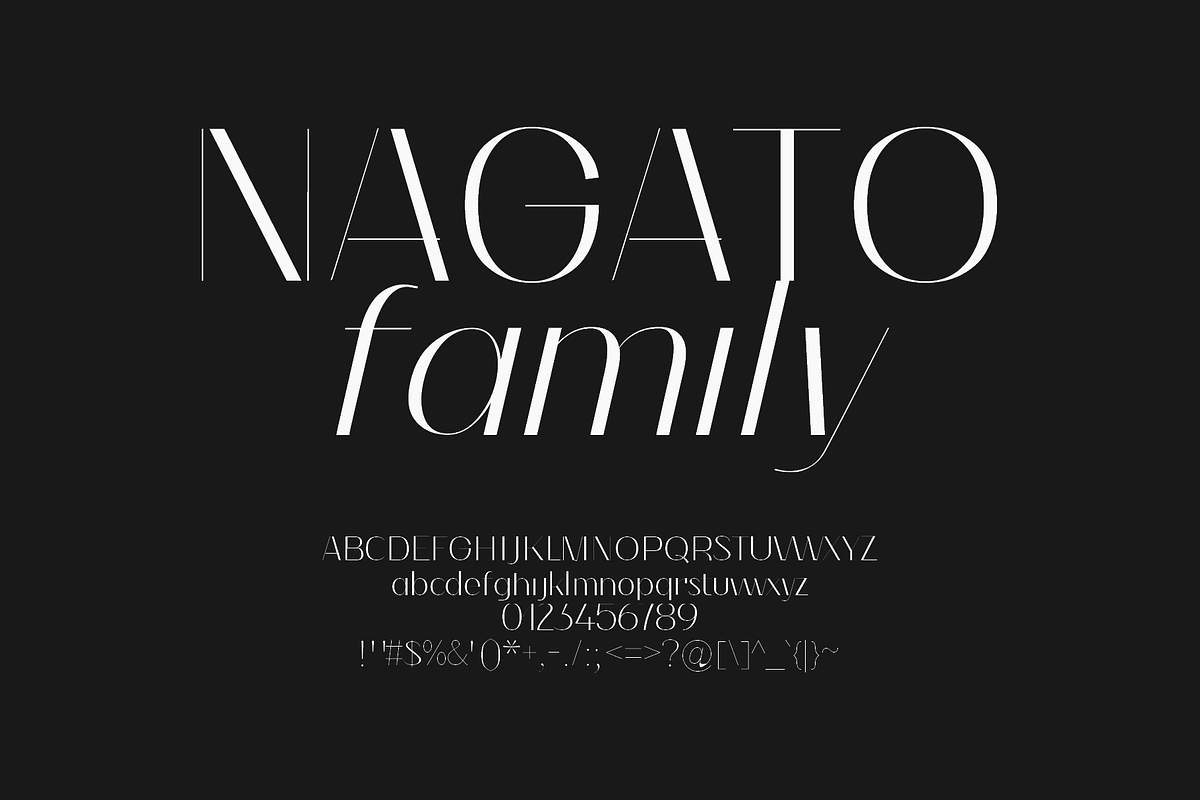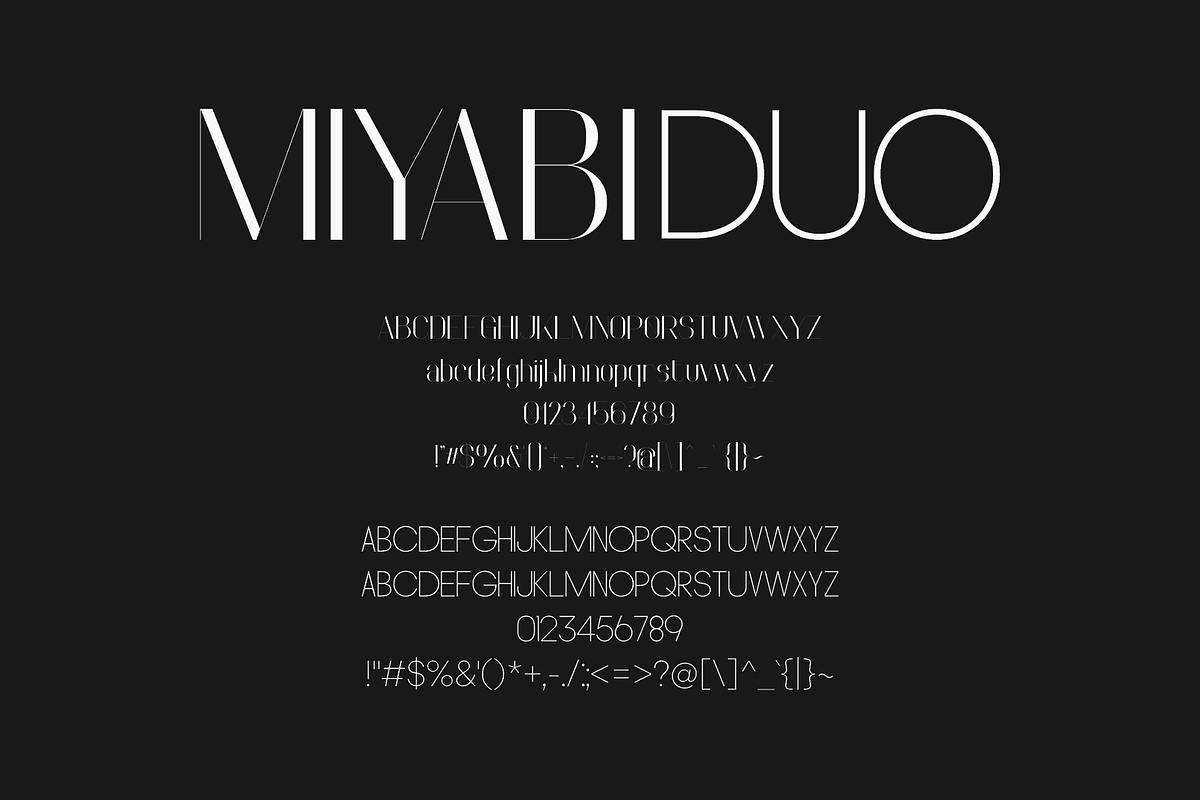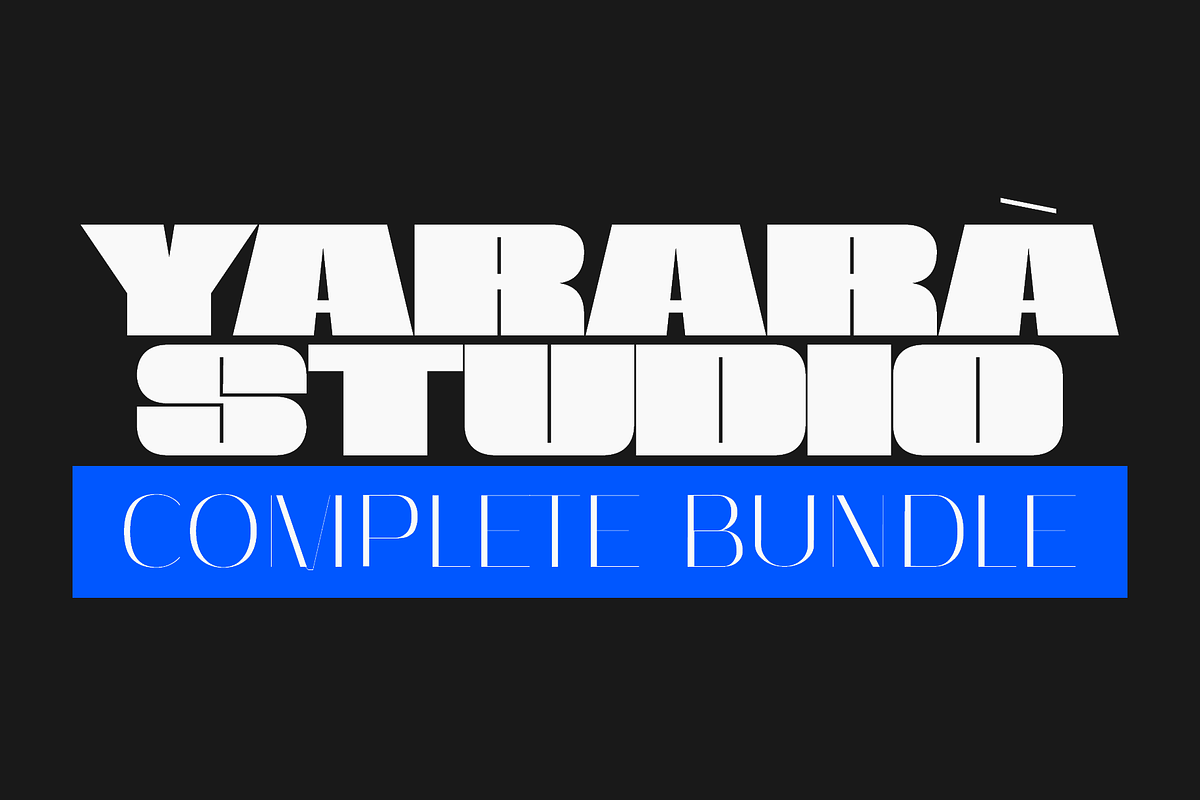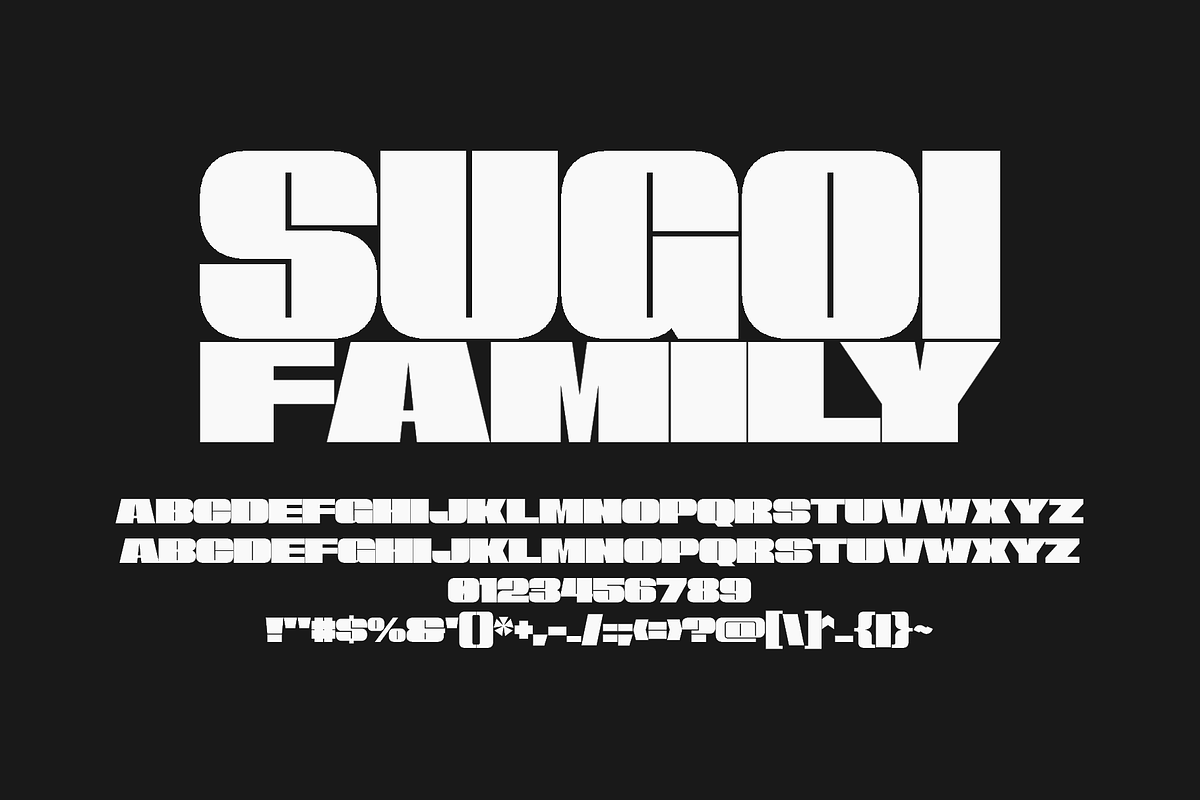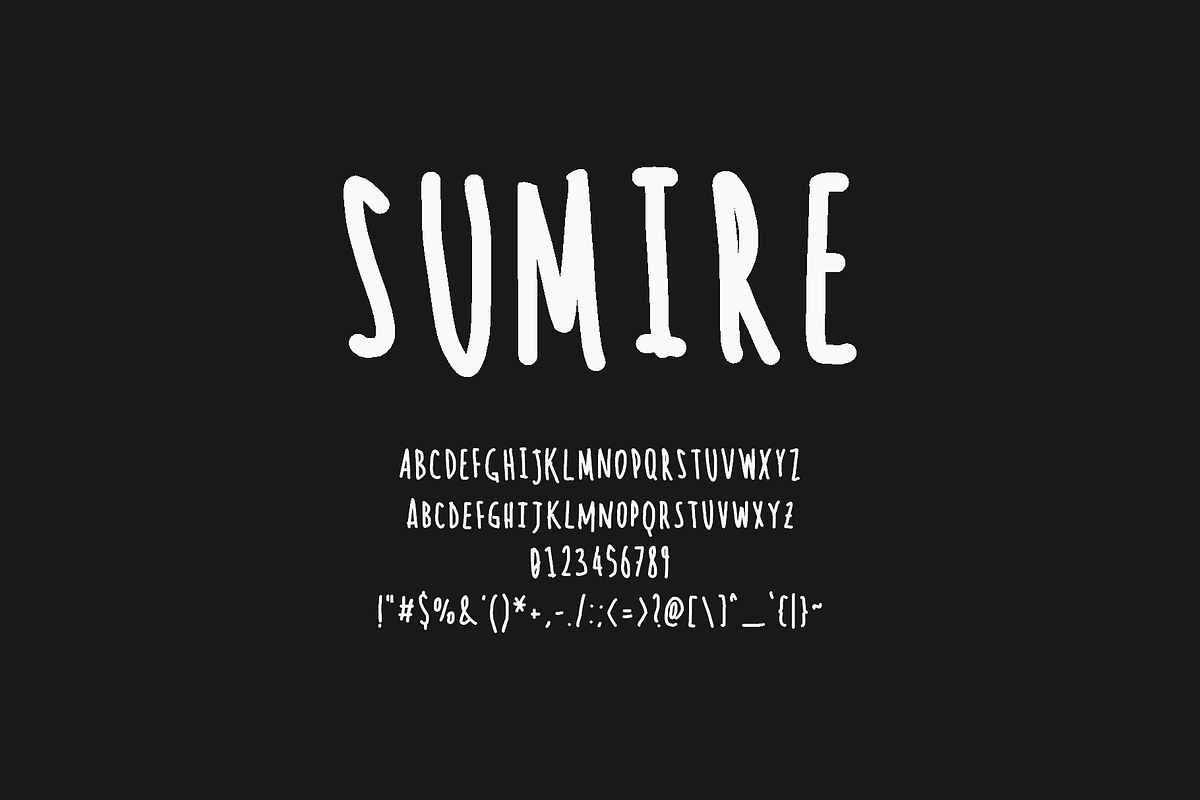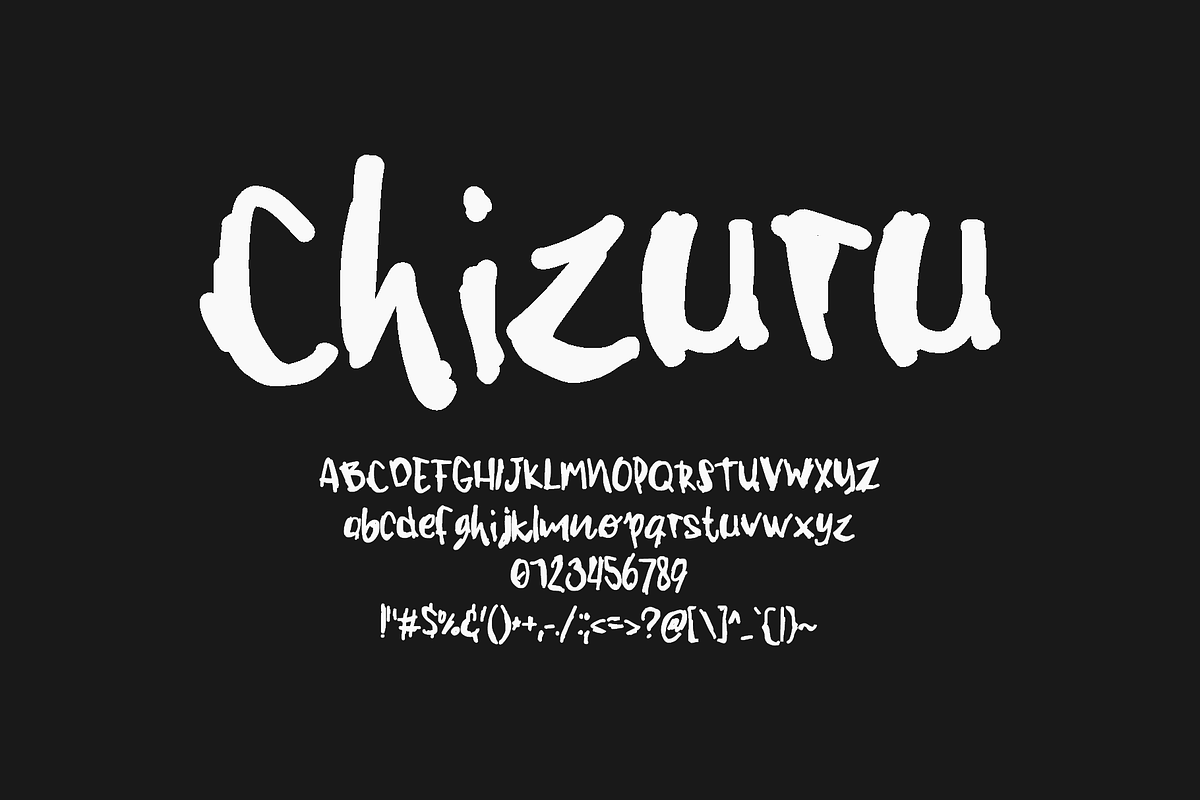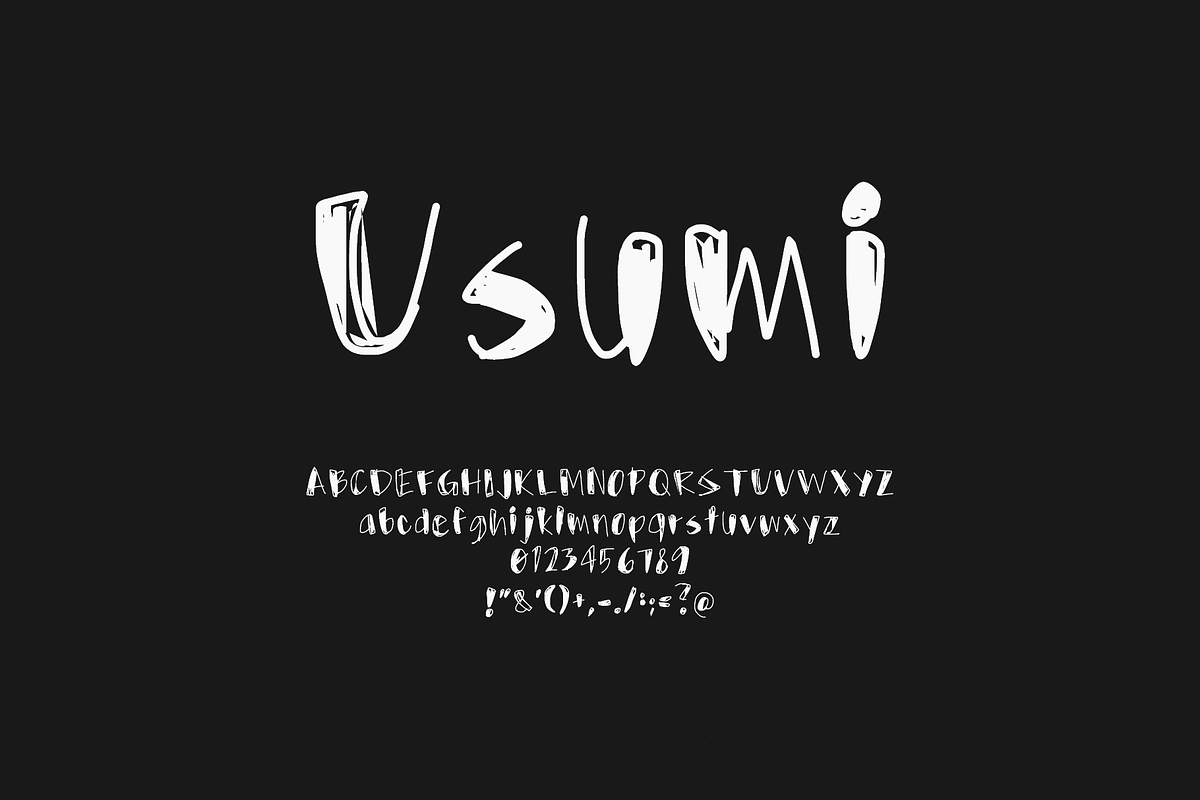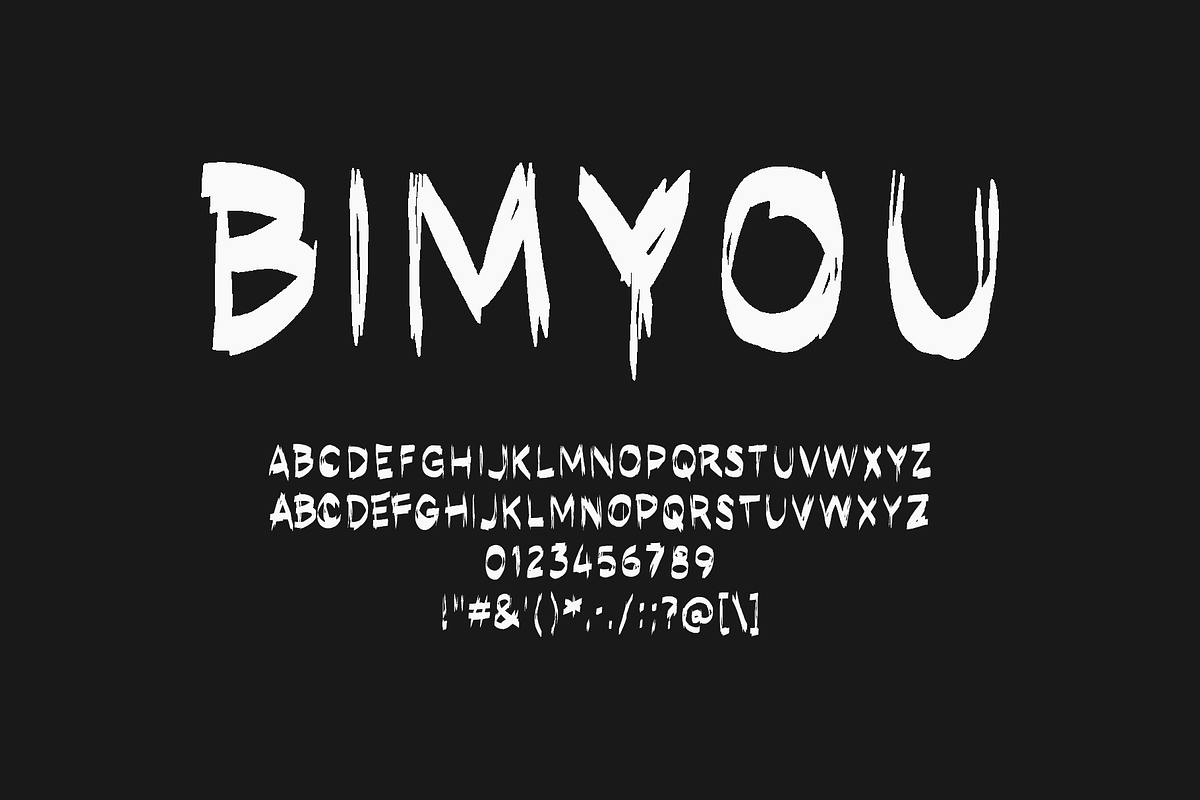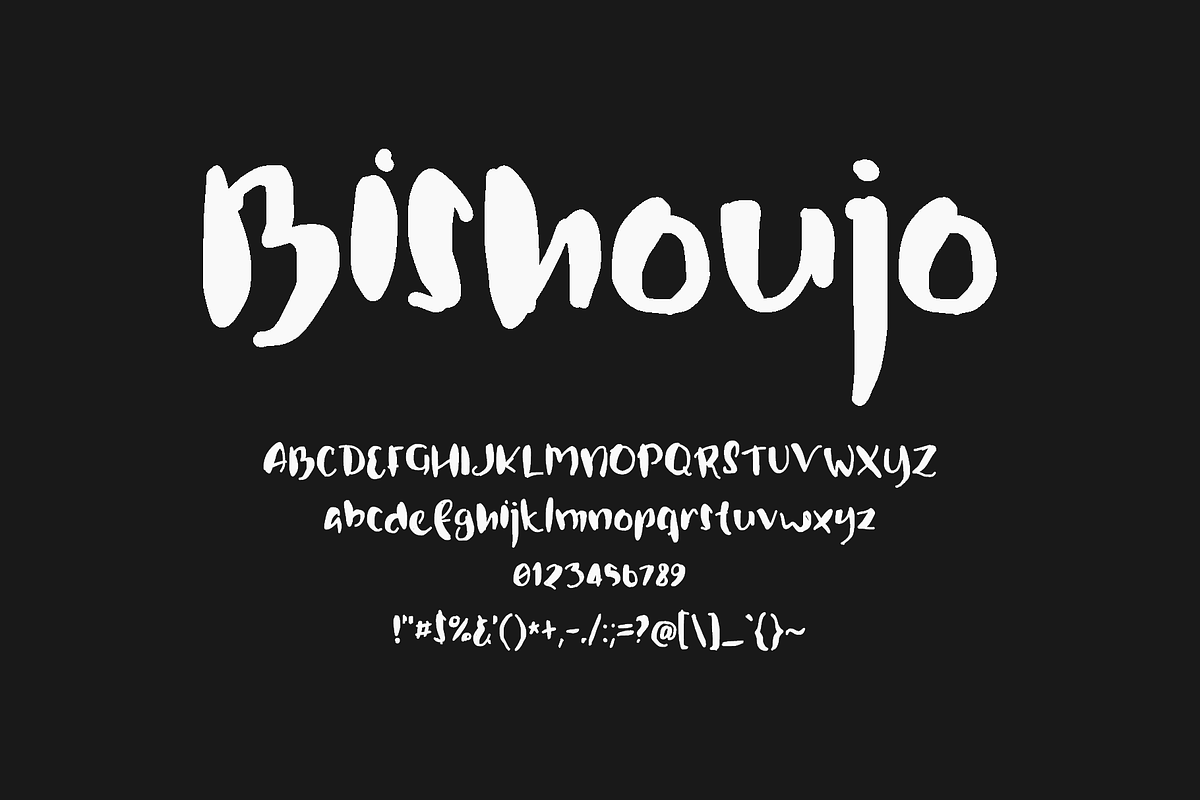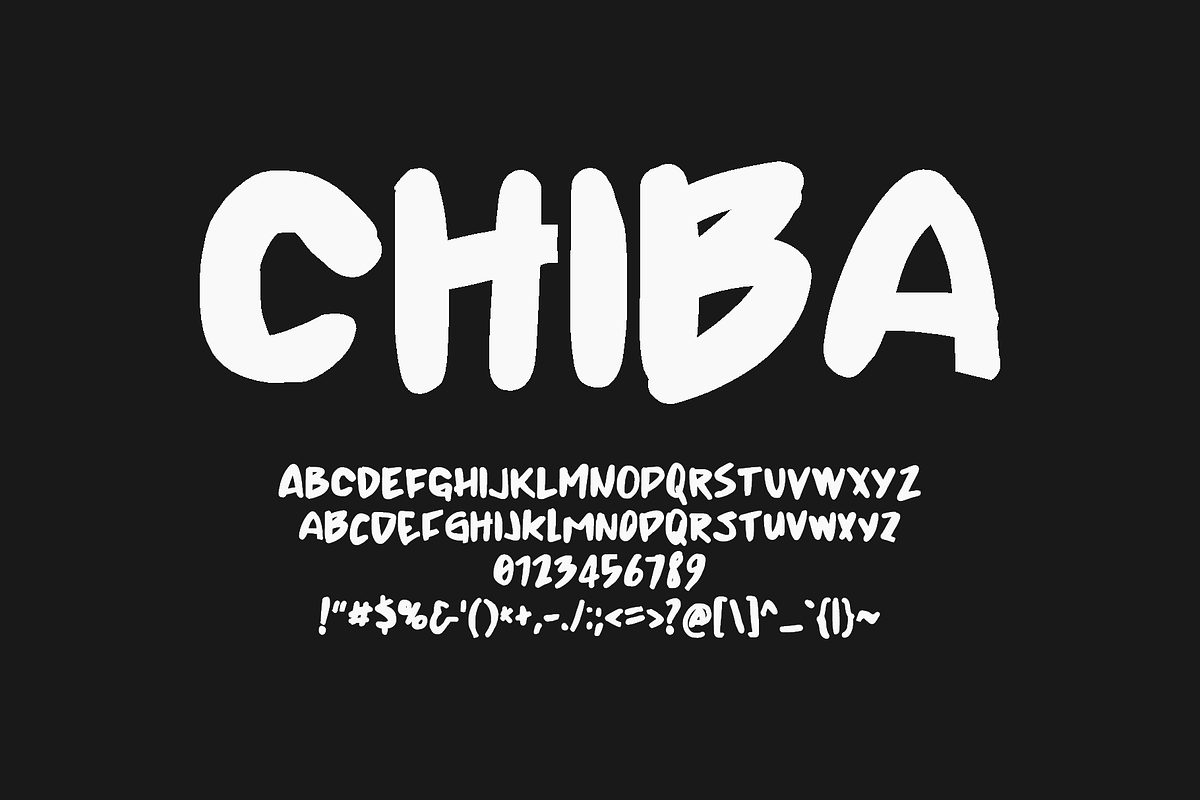
USUMI - Handwritten font: https://creativemarket.com/studioyarara/312086-Usumi-Font
CHIZURU - Handwritten font: https://creativemarket.com/studioyarara/274922-Chizuru-Font
MISATO - Brush font: https://creativemarket.com/studioyarara/279510-Misato-Font
BISHOUJO - Lettering font: https://creativemarket.com/studioyarara/289073-Bishoujo-Font
SUMIRE - Handwritten font: https://creativemarket.com/studioyarara/297274-Sumire-Font
MIKURU - Brush font: https://creativemarket.com/studioyarara/275490-Mikuru-Font
CHIBA - Brush font: https://creativemarket.com/studioyarara/448699-Chiba-Font
TOUKA - Display font: https://creativemarket.com/studioyarara/344232-Touka-Font
BIMYOU - Brush font: https://creativemarket.com/studioyarara/2068936-Bimyou-Font
HANAKOTOBA - Grotesque font family: https://creativemarket.com/studioyarara/2068936-Hanakotoba-Font
NAGATO - Sans serif fashion font family: https://creativemarket.com/studioyarara/297659-Nagato-Font
MIYABI - Elegant font pairing: https://creativemarket.com/studioyarara/5614593-Miyabi-Trio-Font
SUGOI - Ultra bold display type family: https://creativemarket.com/studioyarara/7209641-Sugoi-Font-Family